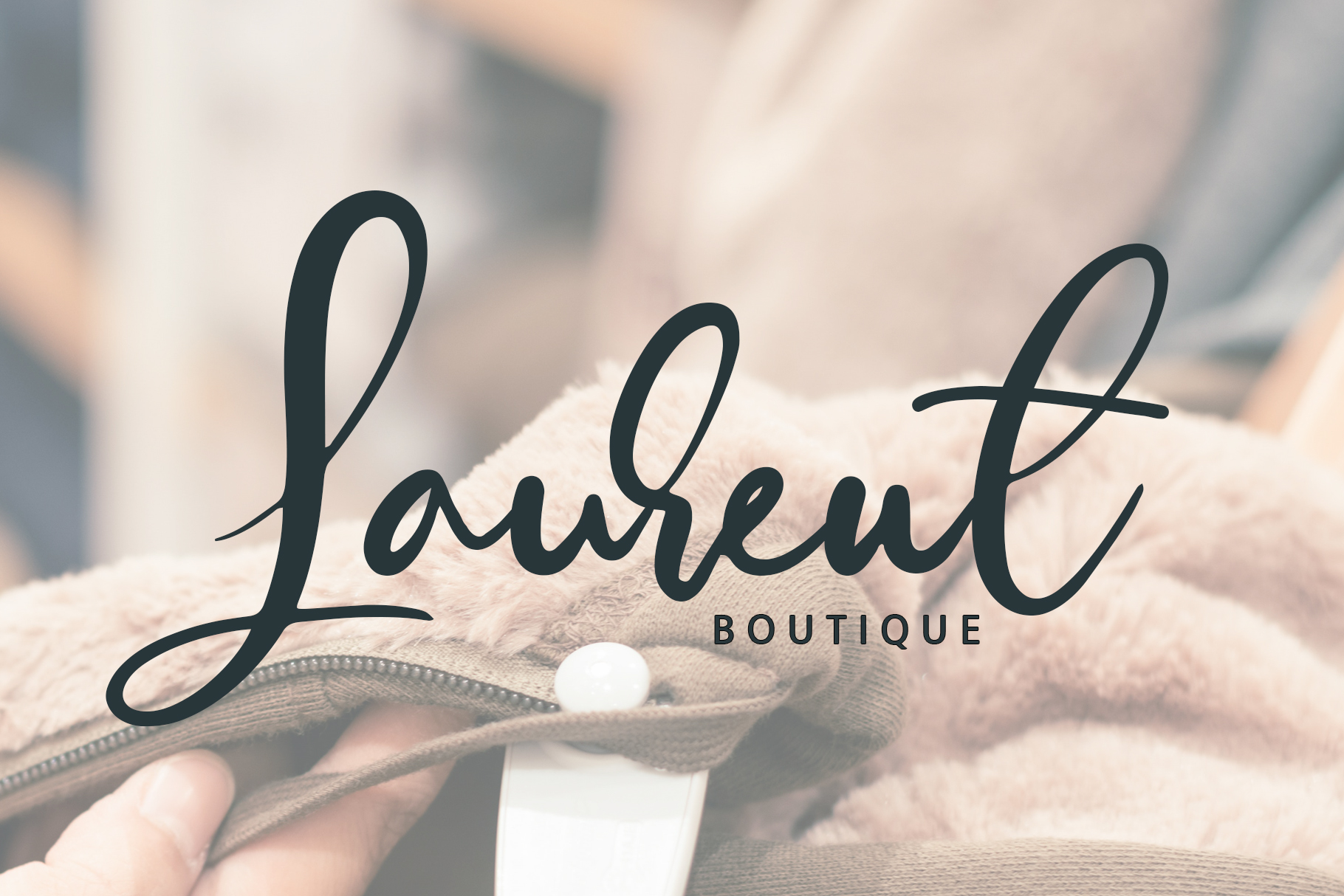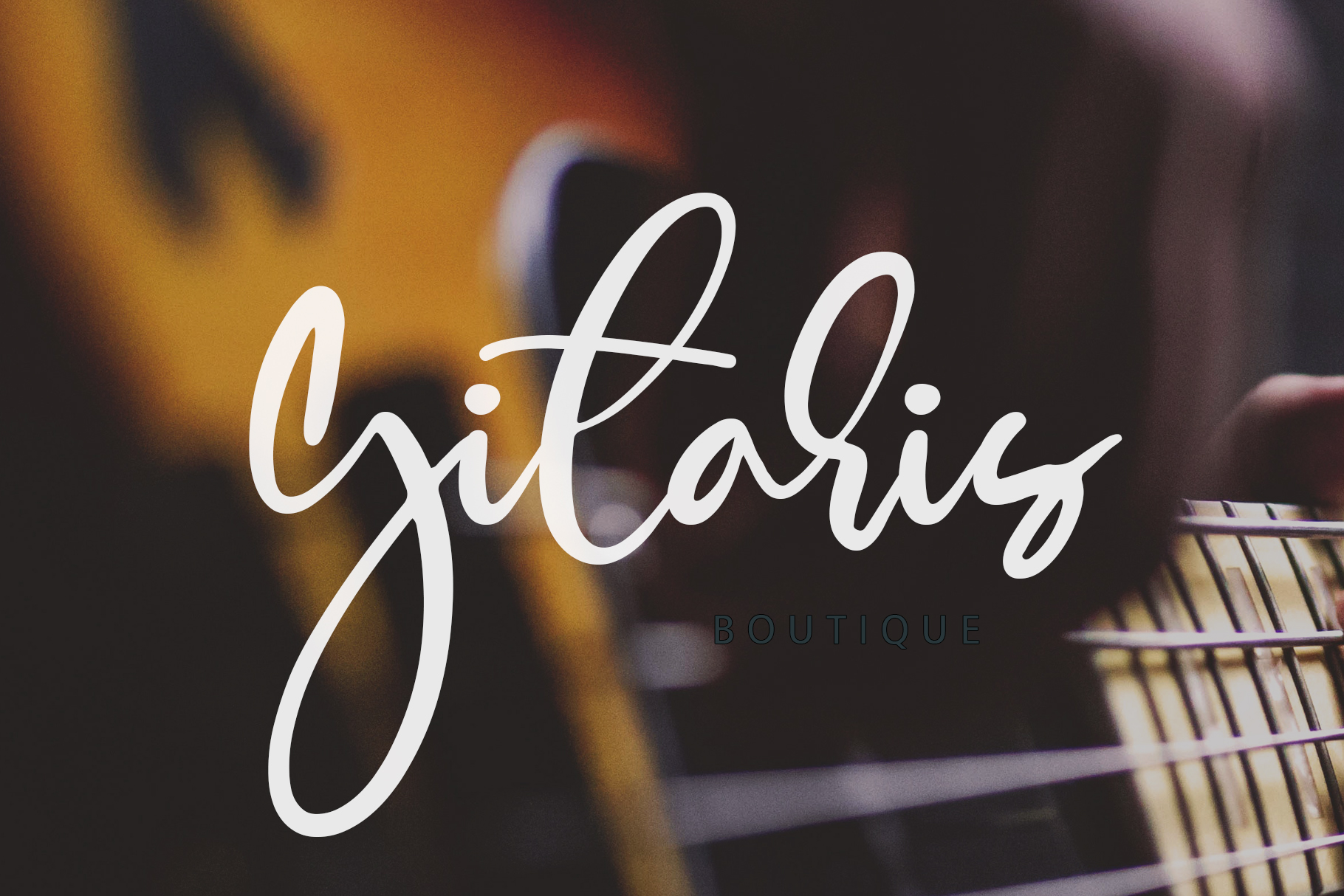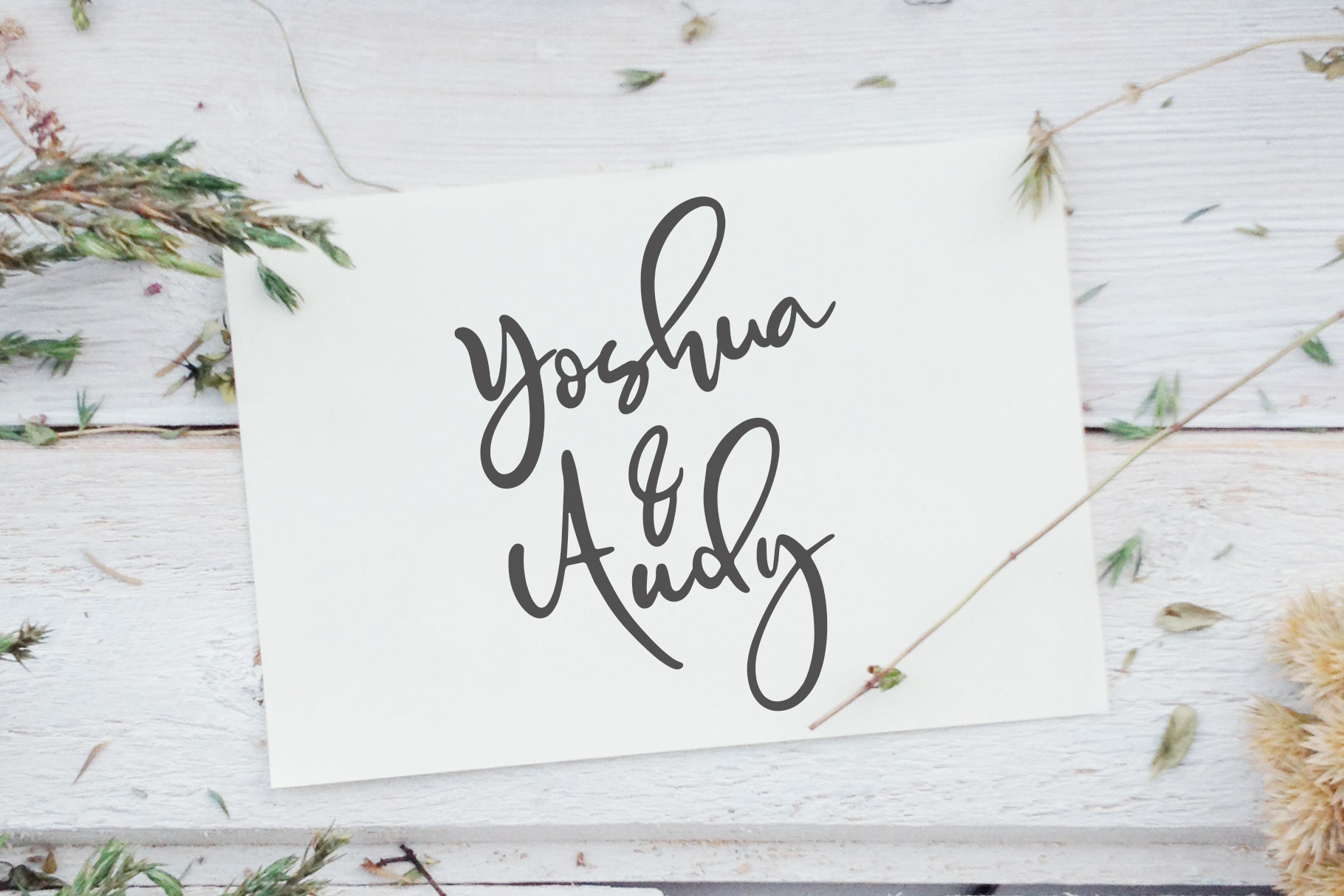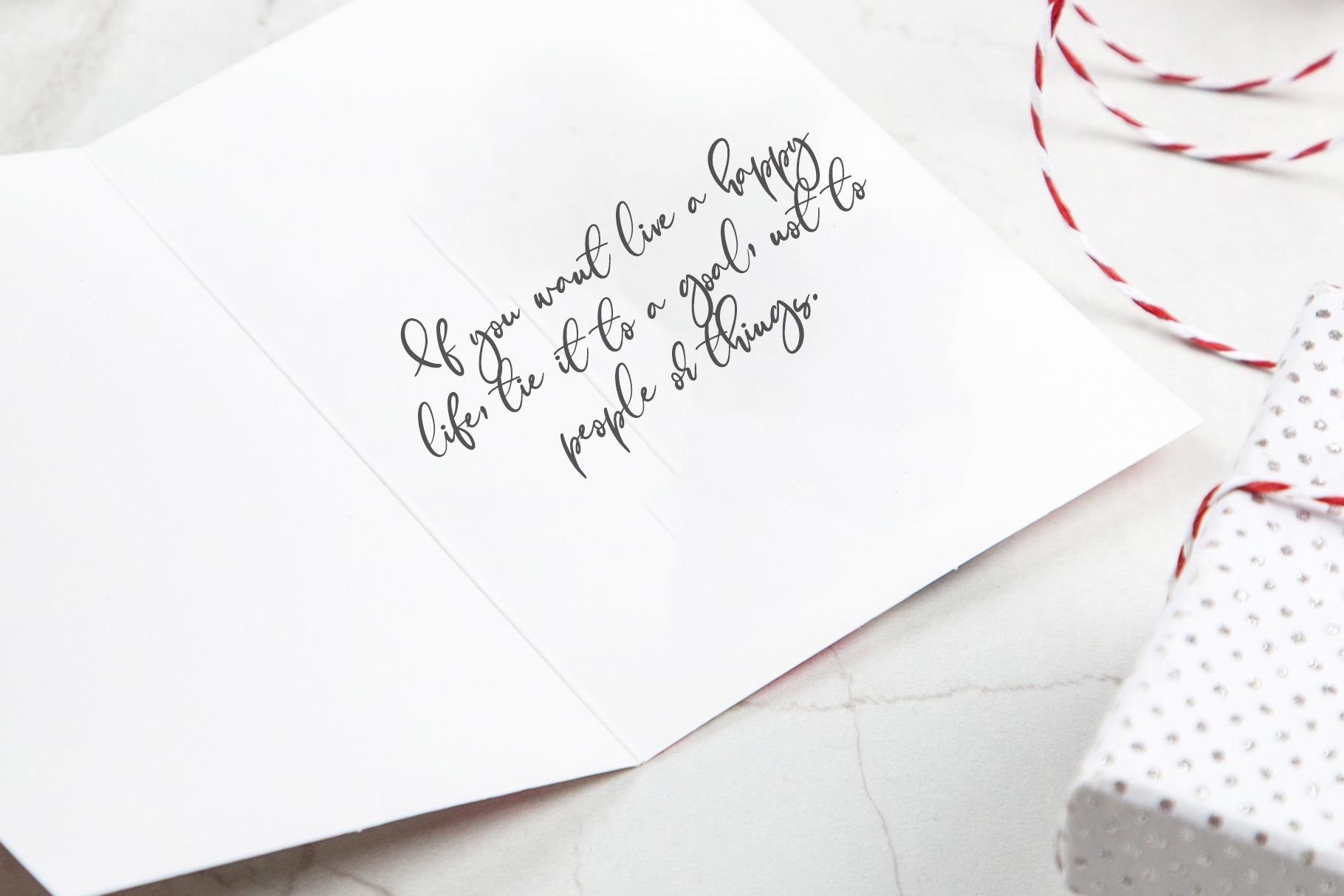
Farishi Font
Farishi Font script lets you create beautiful handcrafted typography, giving your text a lift – perfect for logos, invitations, cards, product packaging, headers. printed quote.